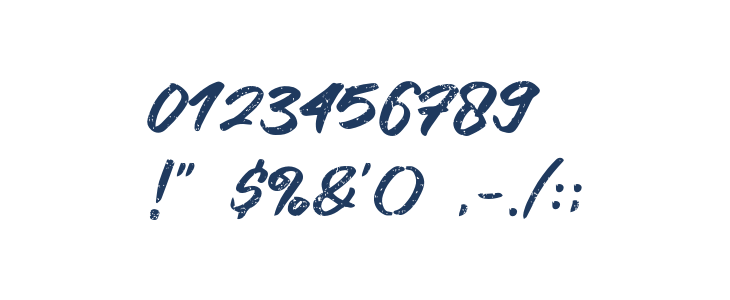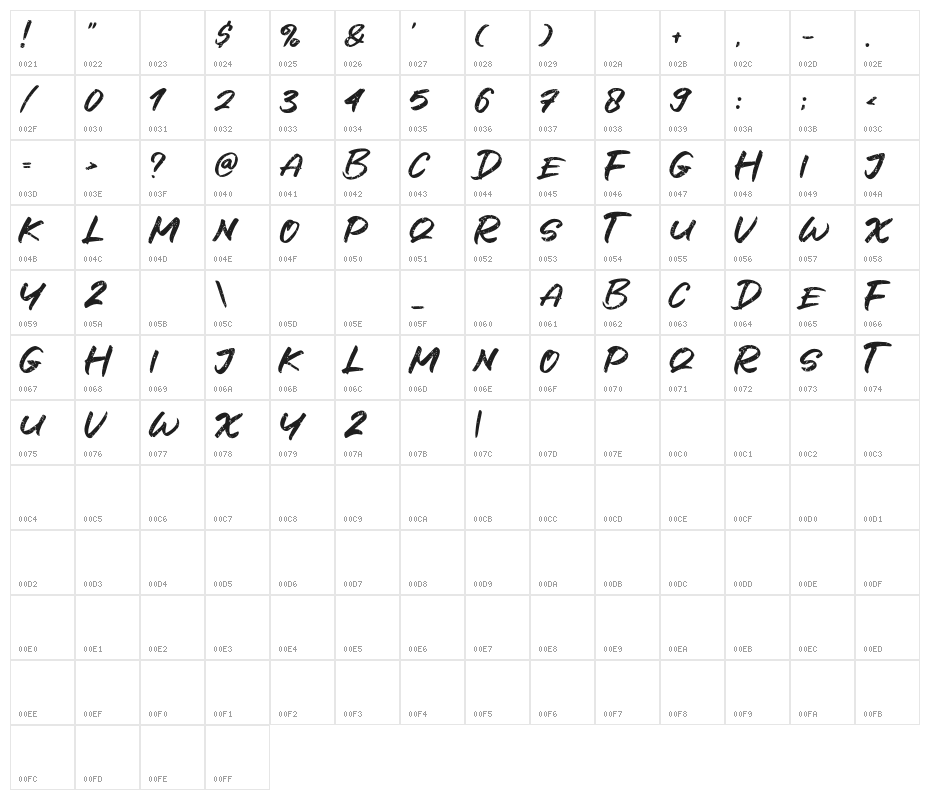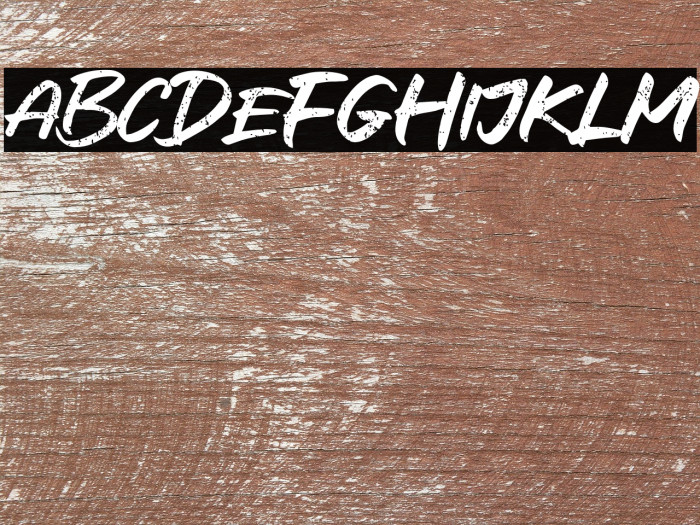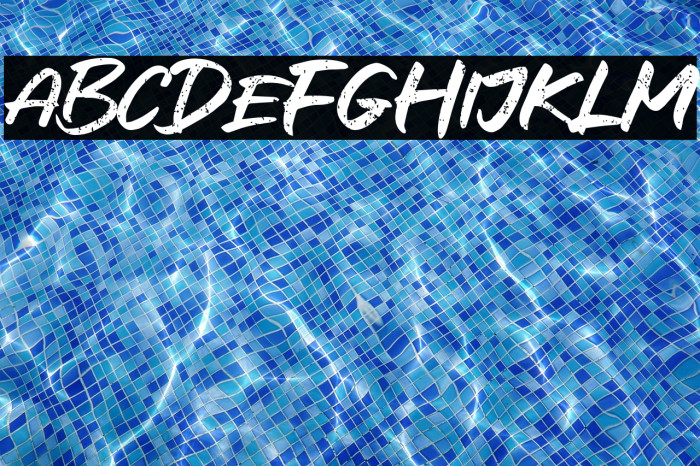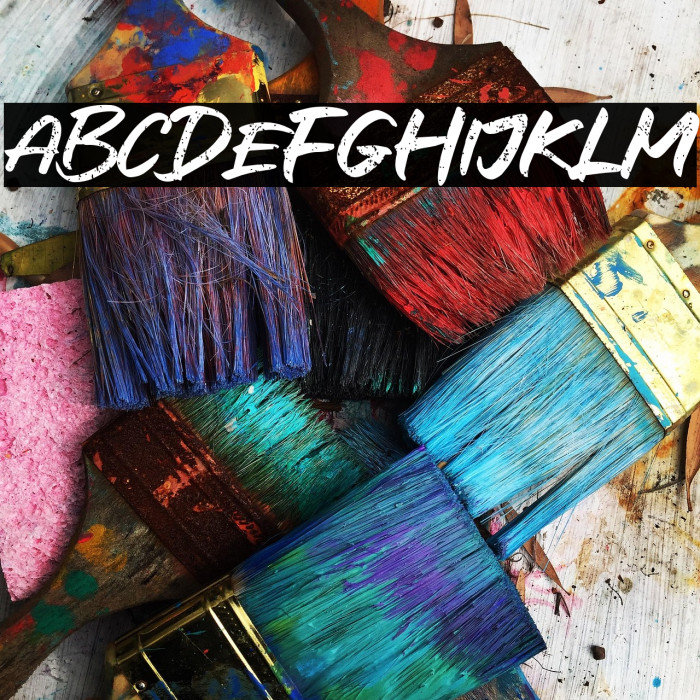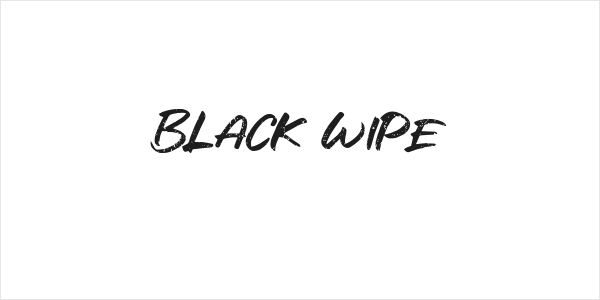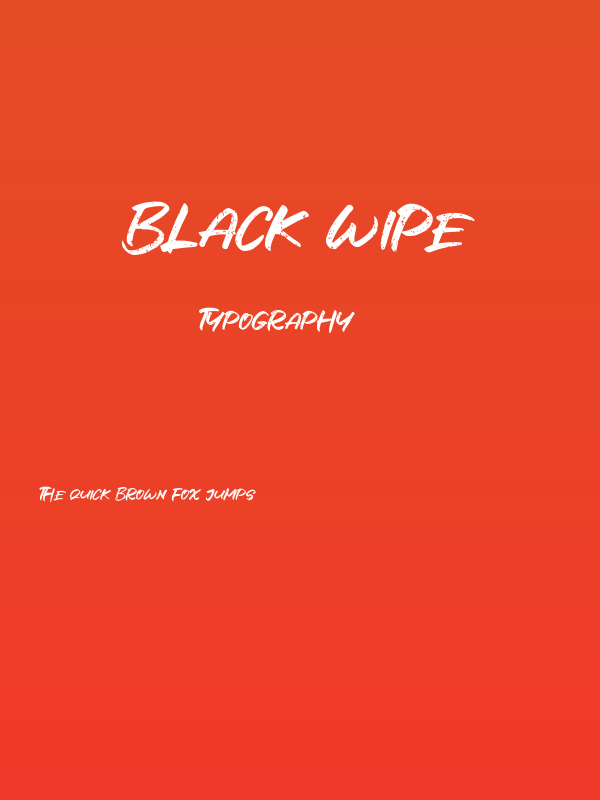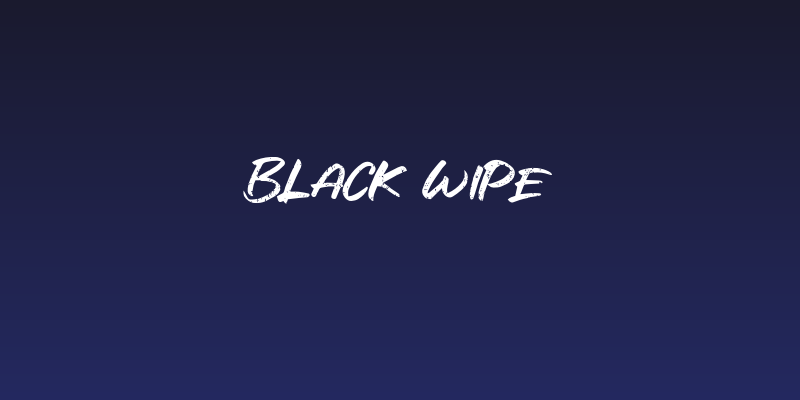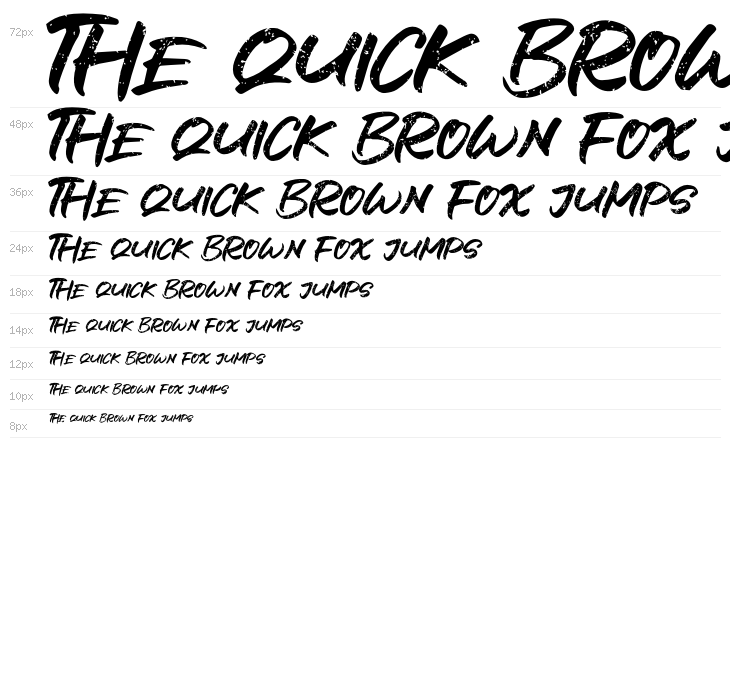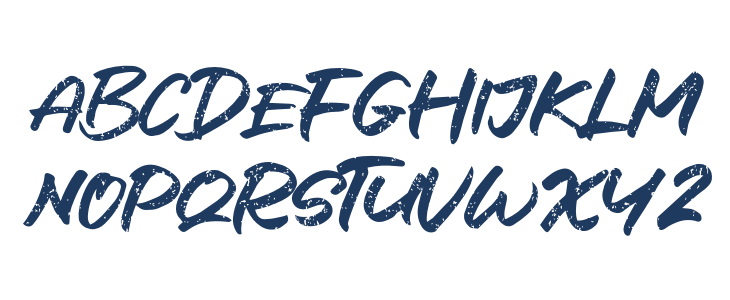
Black Wipe Font
Black Wipe Description
This font features a bold, brush-style script with a distressed texture that gives it a rugged, hand-painted appearance. The letters are dynamic and fluid, with varying stroke widths that add a sense of movement and energy. The uppercase and lowercase letters maintain a consistent style, with rounded edges and a slightly slanted orientation. The numbers and special characters are equally expressive, making the font versatile for various design needs. Its unique texture and bold presence make it stand out, suitable for projects that require a strong visual impact.